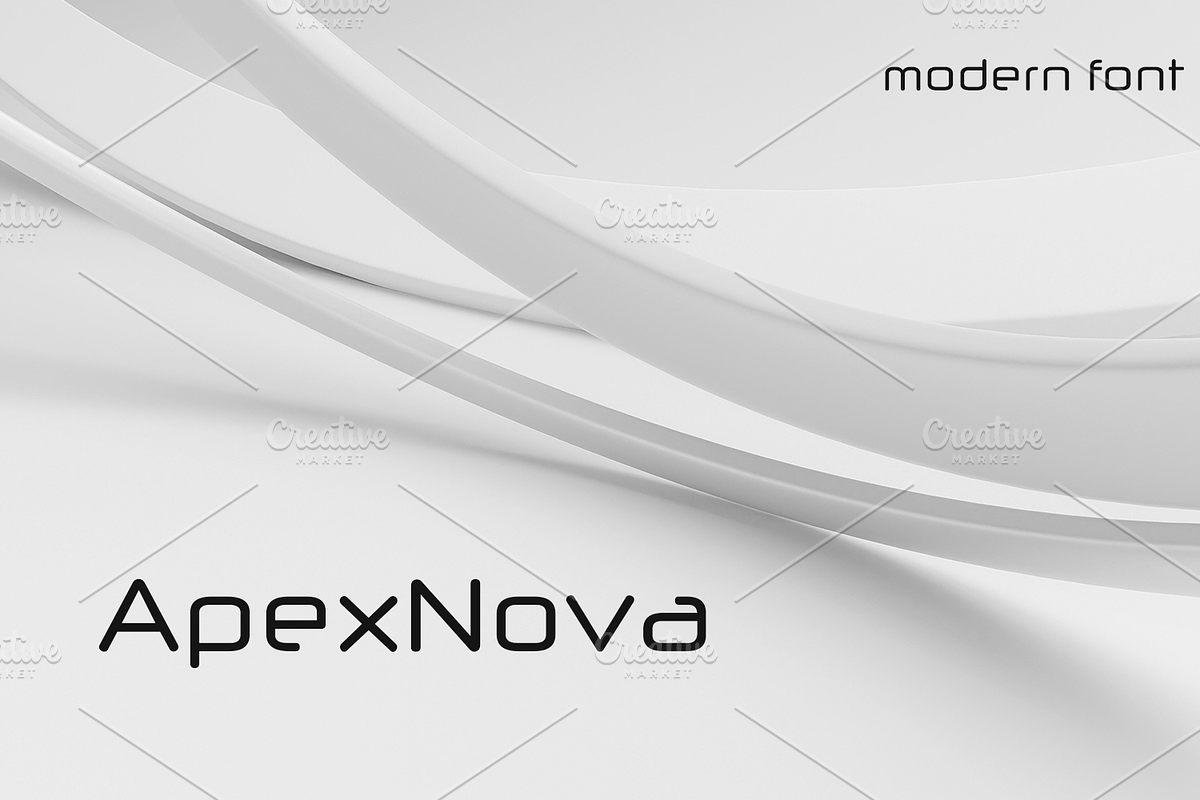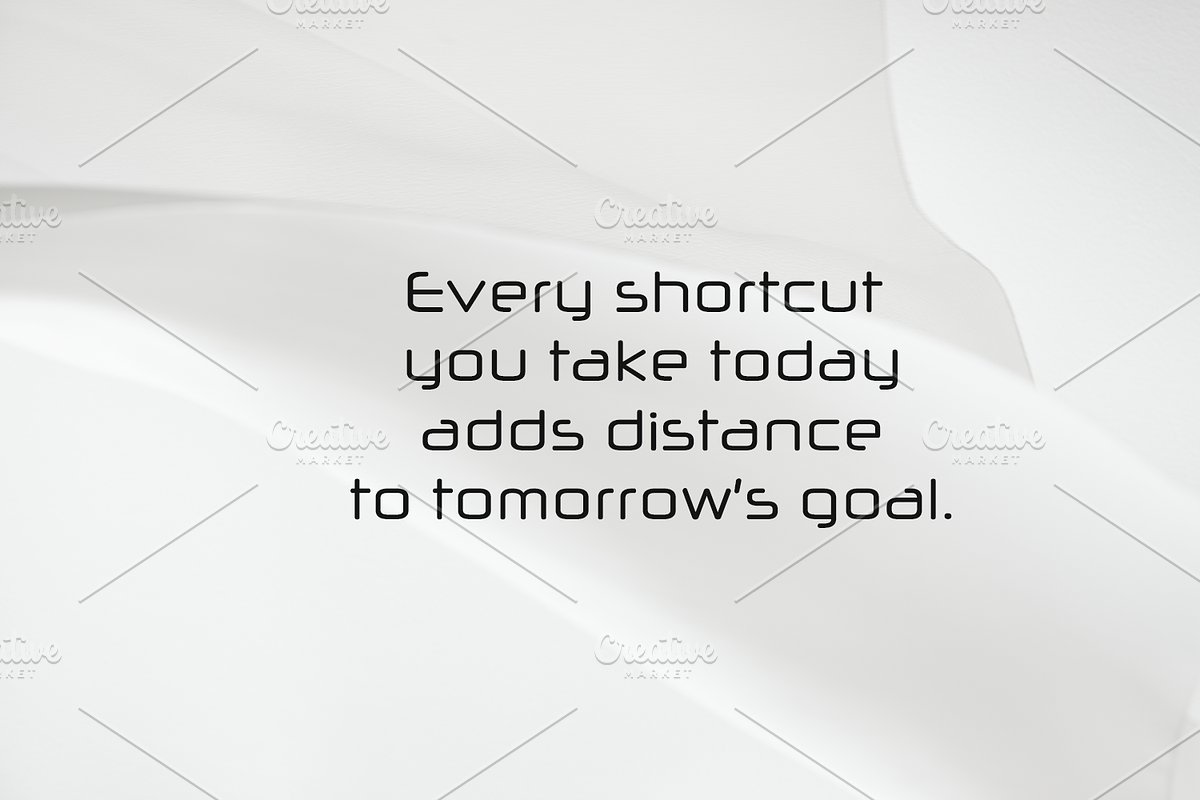
Tired of the typographic status quo? Prepare for a revolution in visual communication. This isn't just a font; it's a statement. Born from the intersection of cutting-edge design and ingenious artistry, this typeface redefines modern aesthetics. Its sleek lines and distinctive character exude a sophisticated intelligence, making your message resonate with clarity and impact.
Imagine your brand elevated by a visual voice that's both contemporary and timeless. Whether you're crafting a groundbreaking website, designing a forward-thinking marketing campaign, or developing a visually stunning editorial piece, this font provides the intellectual edge you need to stand out.